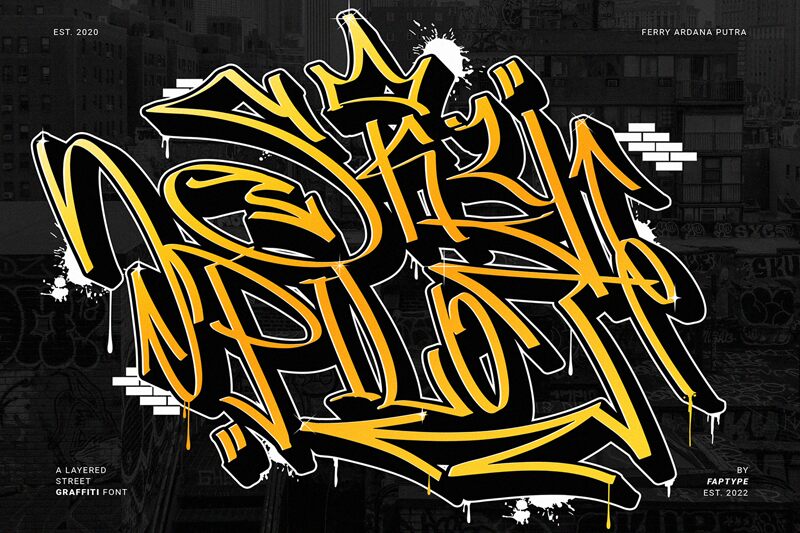
Skypilot font designed by Ferry Ardana Putra is filled with artistic flair and a graffiti personality. The light, condensed letters create an elegant form and structure that seem almost to have been hand-drawn. Expressive without losing its meaning or intent, the typeface does its part of the job perfectly, which is grabbing attention. It lacks in legibility but doesn’t exaggerate it with visually engaging characters created without even being ornamental.